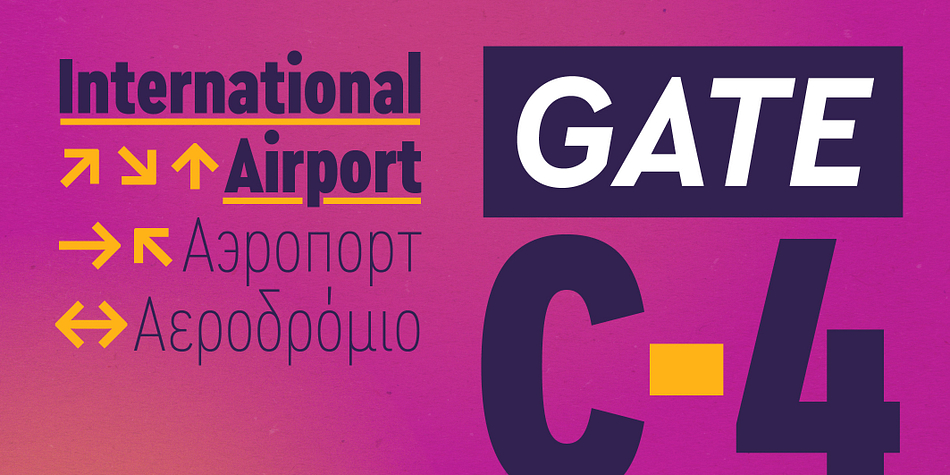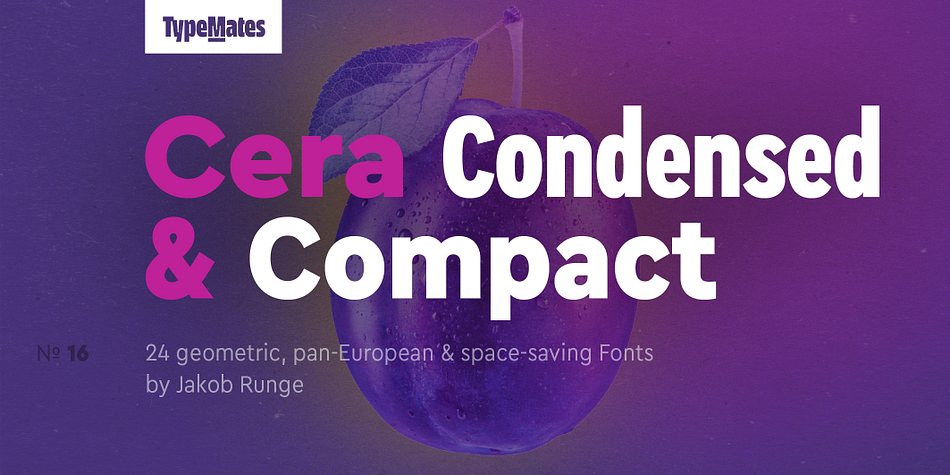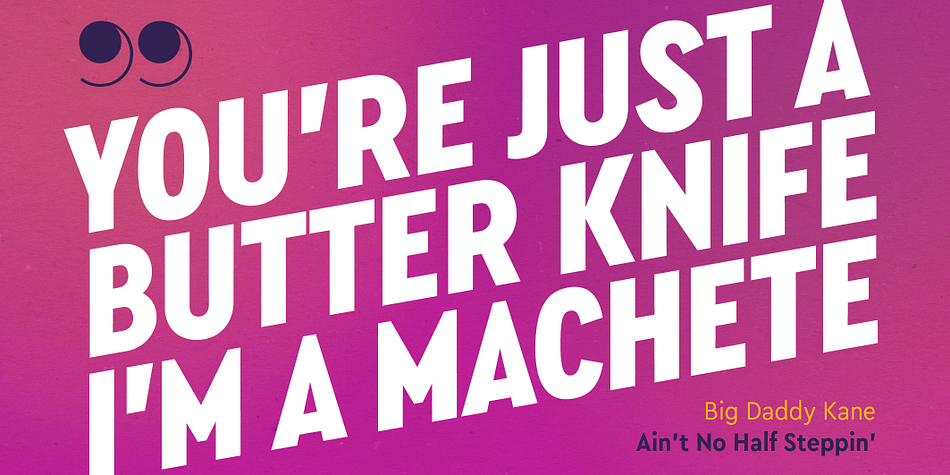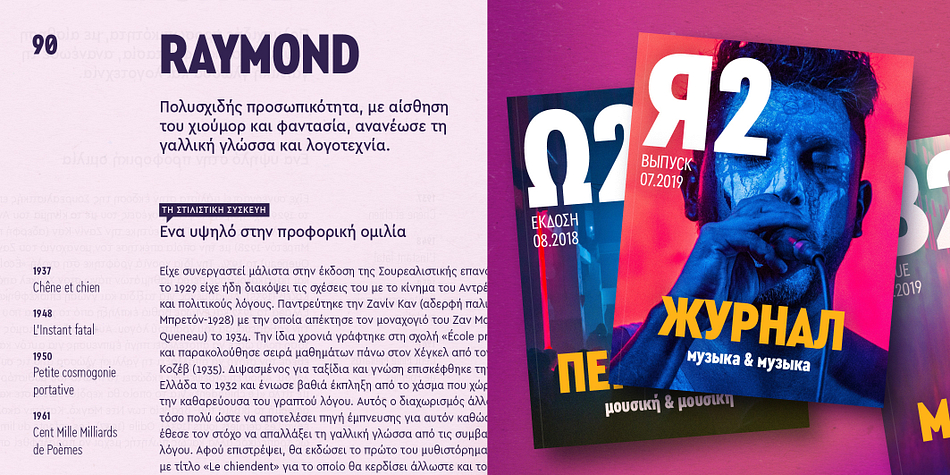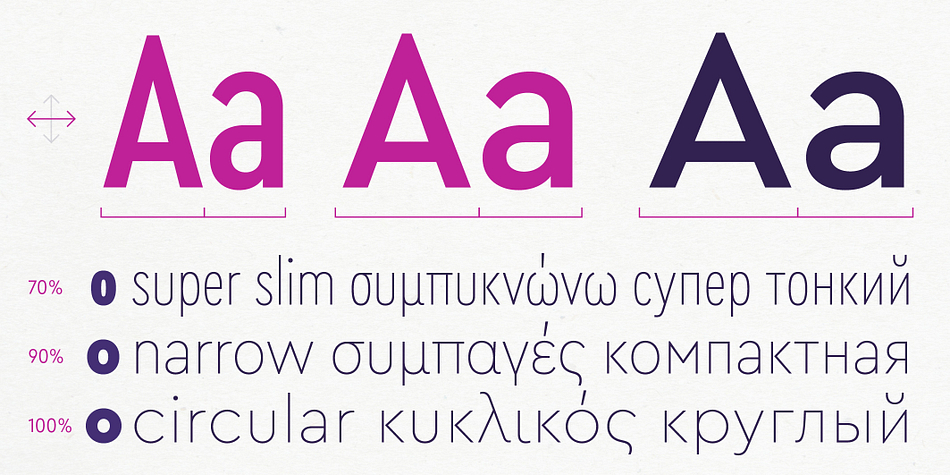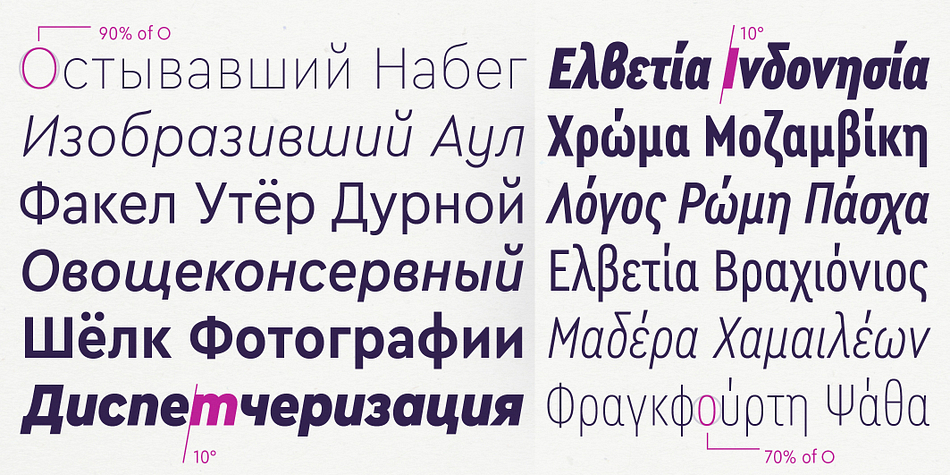
Designed by Jakob Runge, Cera Condensed and Compact is a sans serif font family. This typeface has twenty-four styles and was published by TypeMates.
The pan-European Cera Collection is driven by pure geometry and contains the bestselling Cera, its stenciled counterpart Cera Stencil, Cera Condensed, the hand-crafted display Cera Brush and the soft Cera Round.
Developed for the narrow reading environments of mobile devices, user interfaces and text columns, Cera Condensed and Compact take the clarity and geometry of Cera Pro to new places.
Narrow but not obviously condensed, Cera Compact is made for efficiency in body text. With regularly proportioned spacing it has the flexibility for text and headlines, taking up less space without making text less readable.
Super tight Cera Condensed is for when you need a geometric sans that can work in a narrow space, large or small; compact information leaflet or compressed headline.
Condensed or Compact, a broad spectrum of six weights, thin to black, each with matching italics makes these fonts ready for any typographical requirement and reliable typographic tools for interfaces and corporate design. And it gets even better: for best on-screen performance the TrueType files for the web and desktop fonts are improved with manual hinting.
The extended, pan-European Cera Condensed and Compact support around 150 languages in the Latin, Cyrillic and Greek scripts, and its non-Latin components were developed with native consultants. With over 980 glyphs per style, Cera Condensed and Compact care about localised letterforms and have the OpenType features to match.